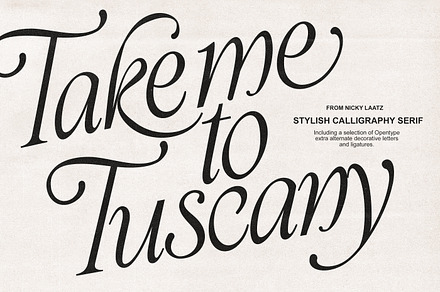
Take Me To Tuscany Typeface
A typeface with a Mediterranean warmth – slightly irregular letterforms that suggest hand-painted signage rather than digital construction.
Painted signage carries the small inconsistencies of a brush working on an uneven wall, and the letterforms are drawn with that in mind.
- Hand-painted irregularity
- Multilingual support
Made for
- Restaurant and hospitality branding
- Wine and food packaging
- Travel and villa marketing
- Signage and print